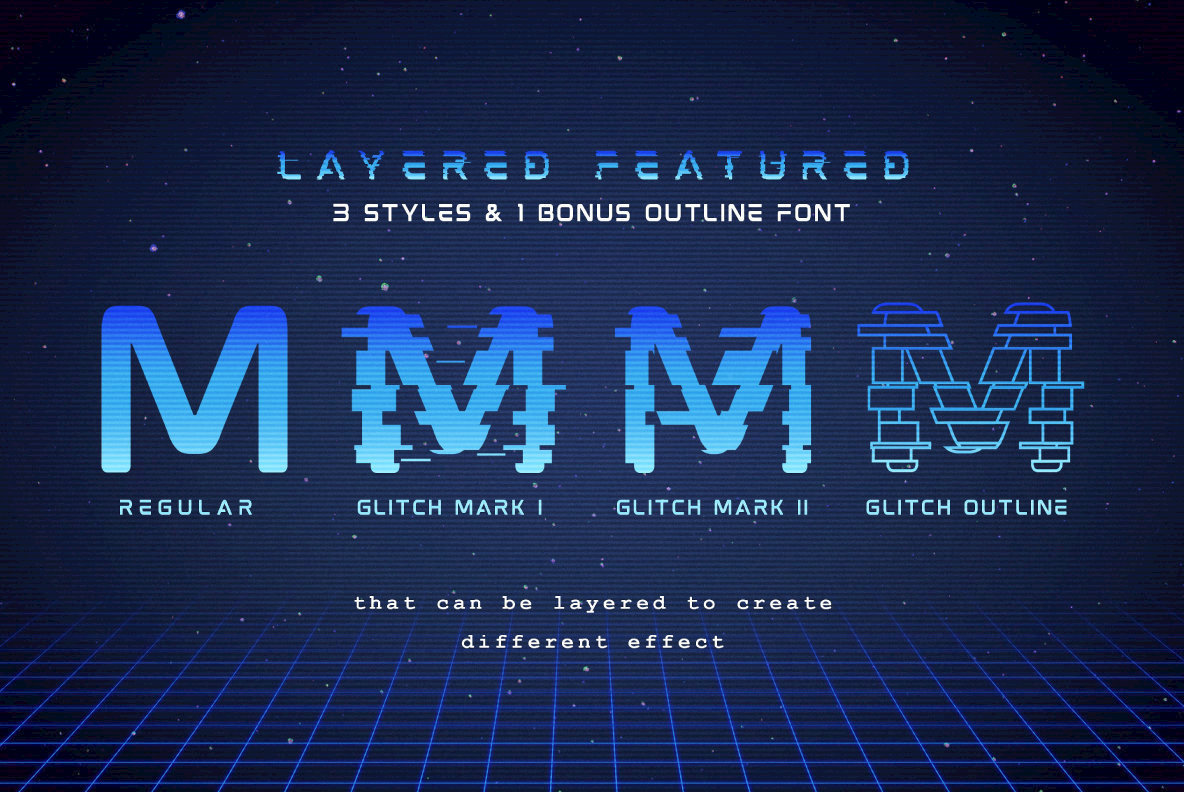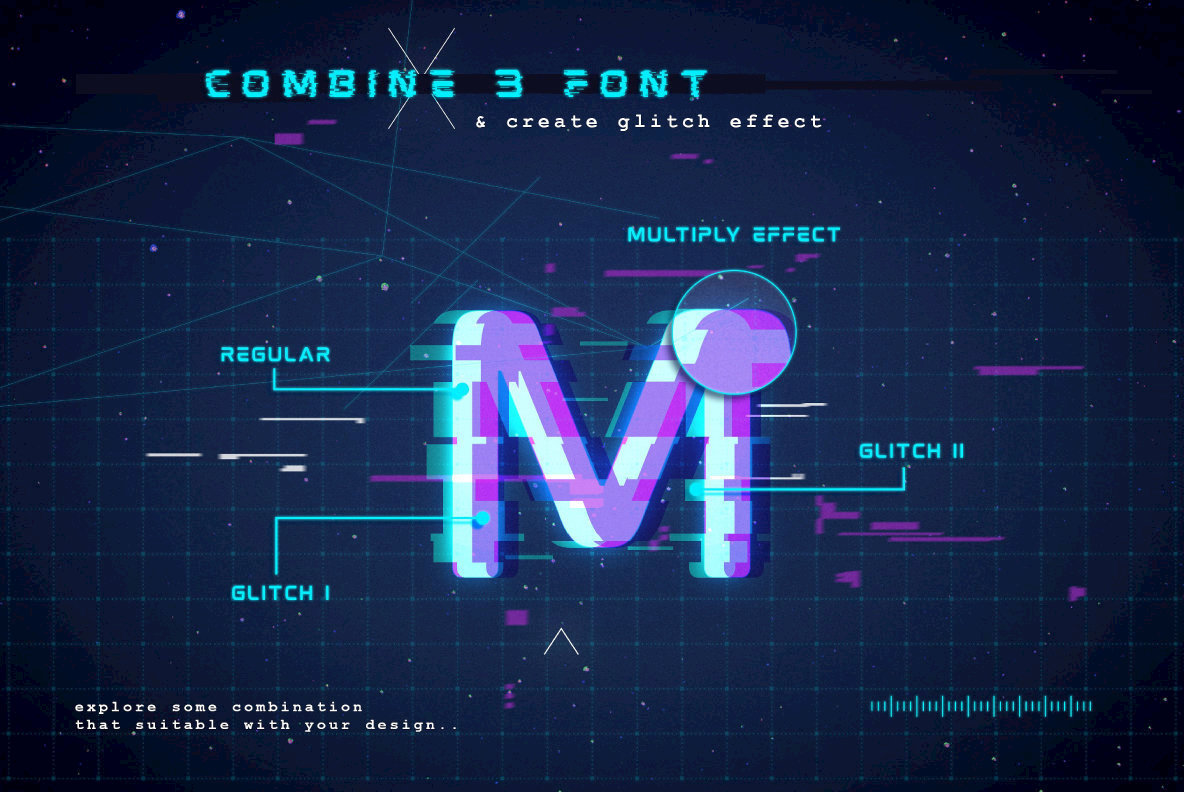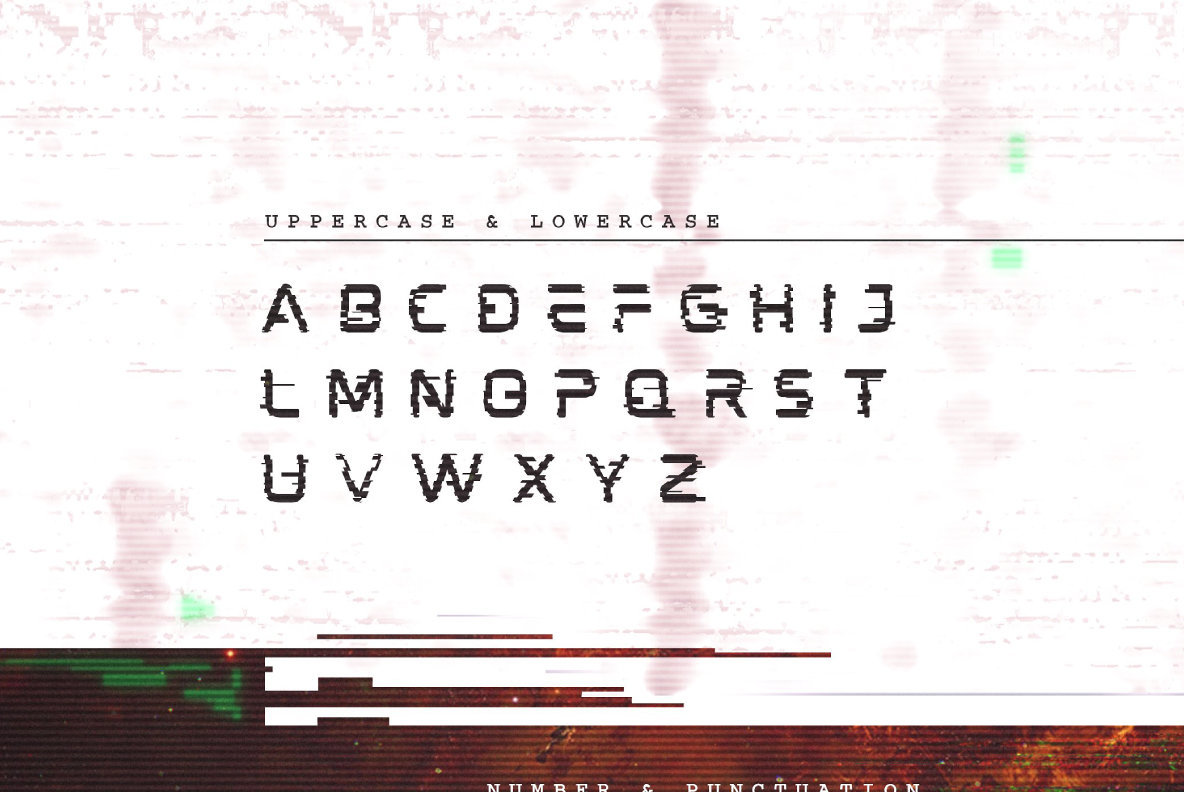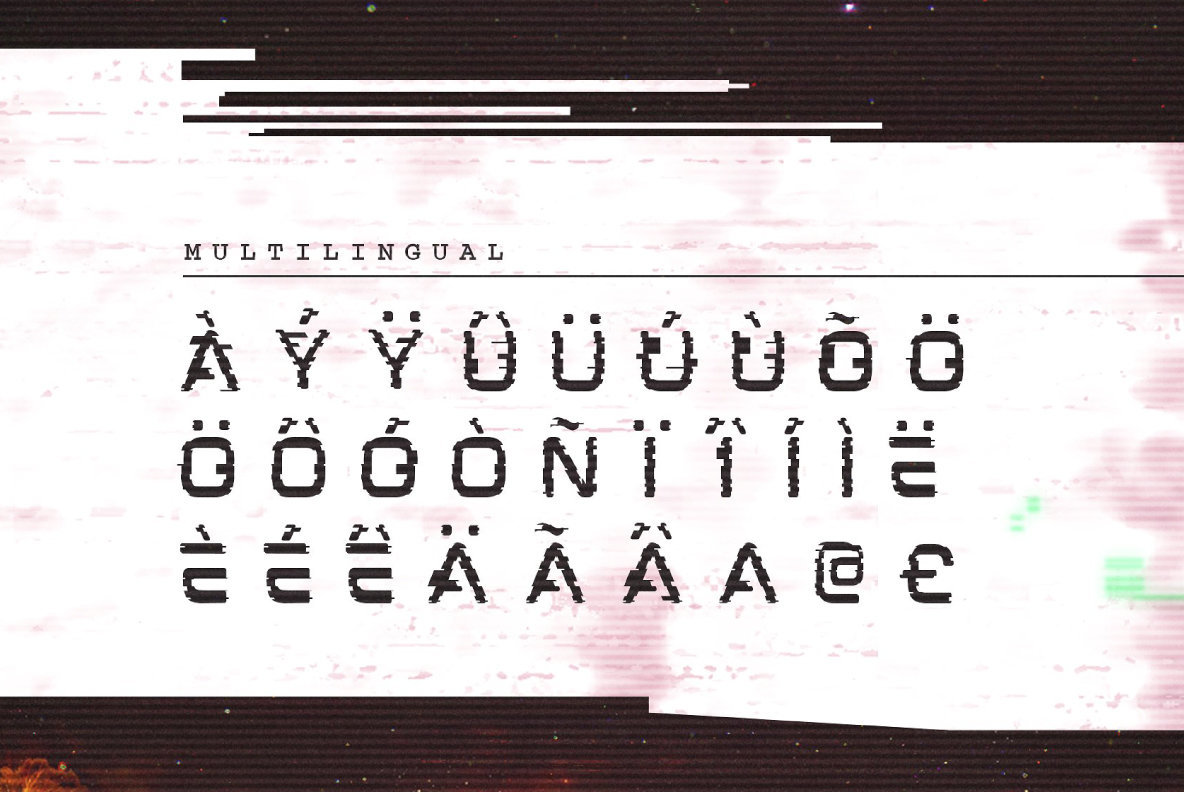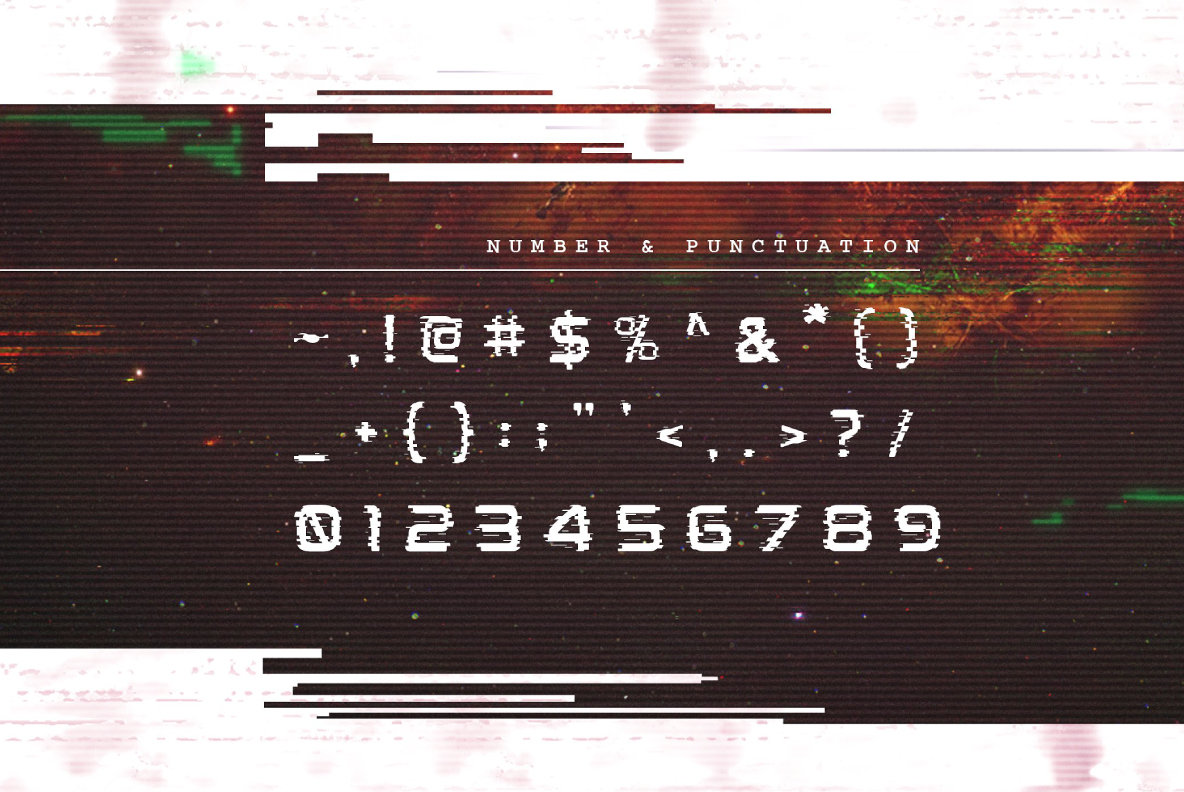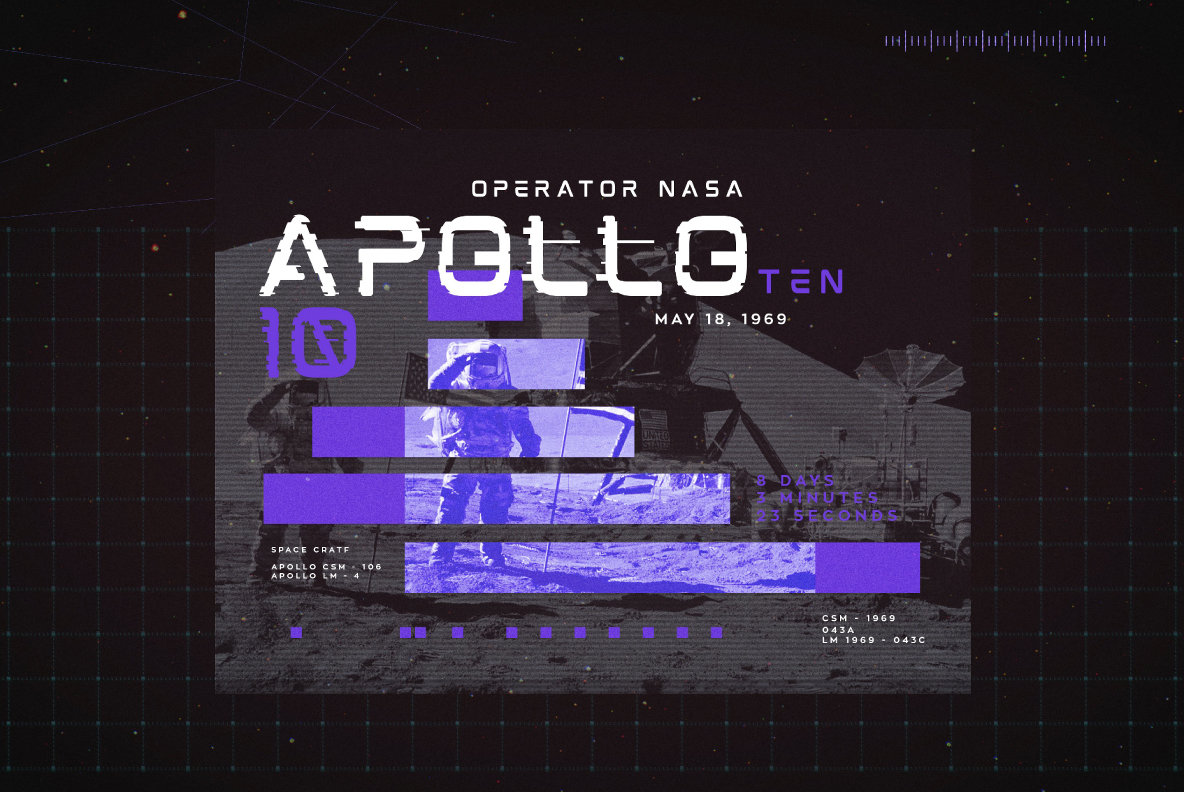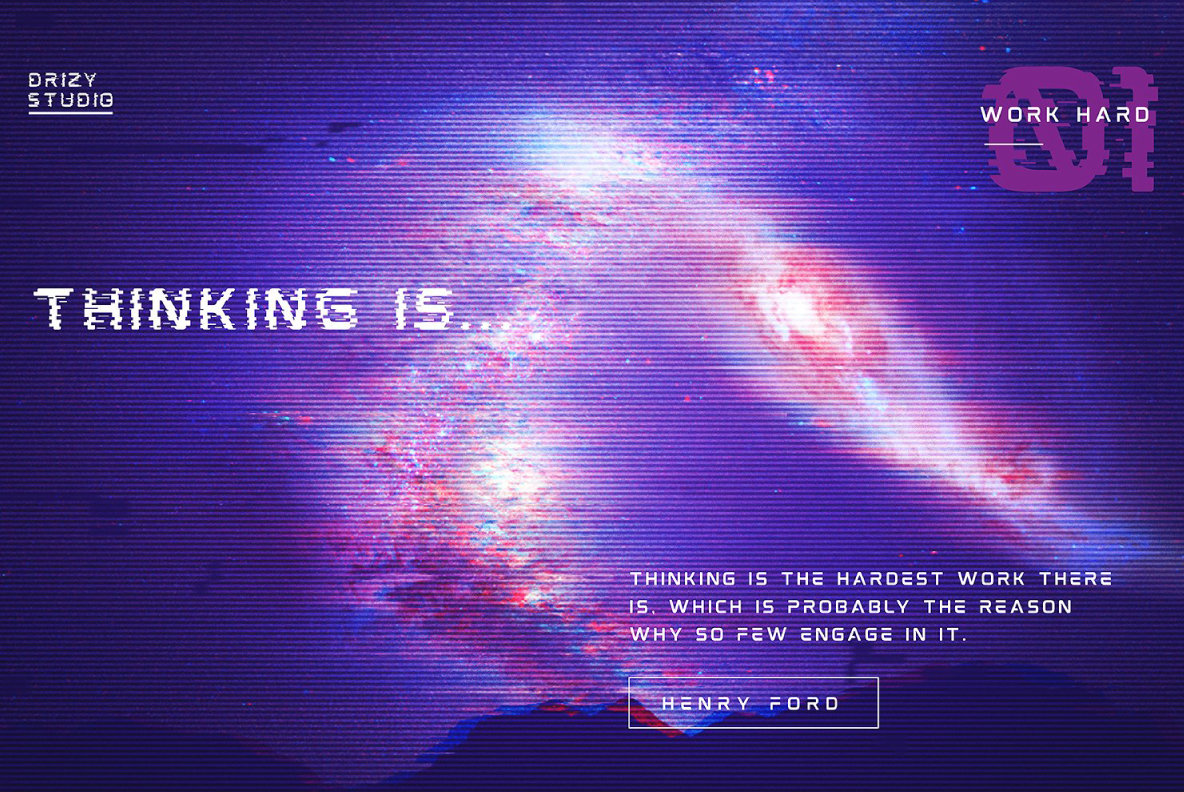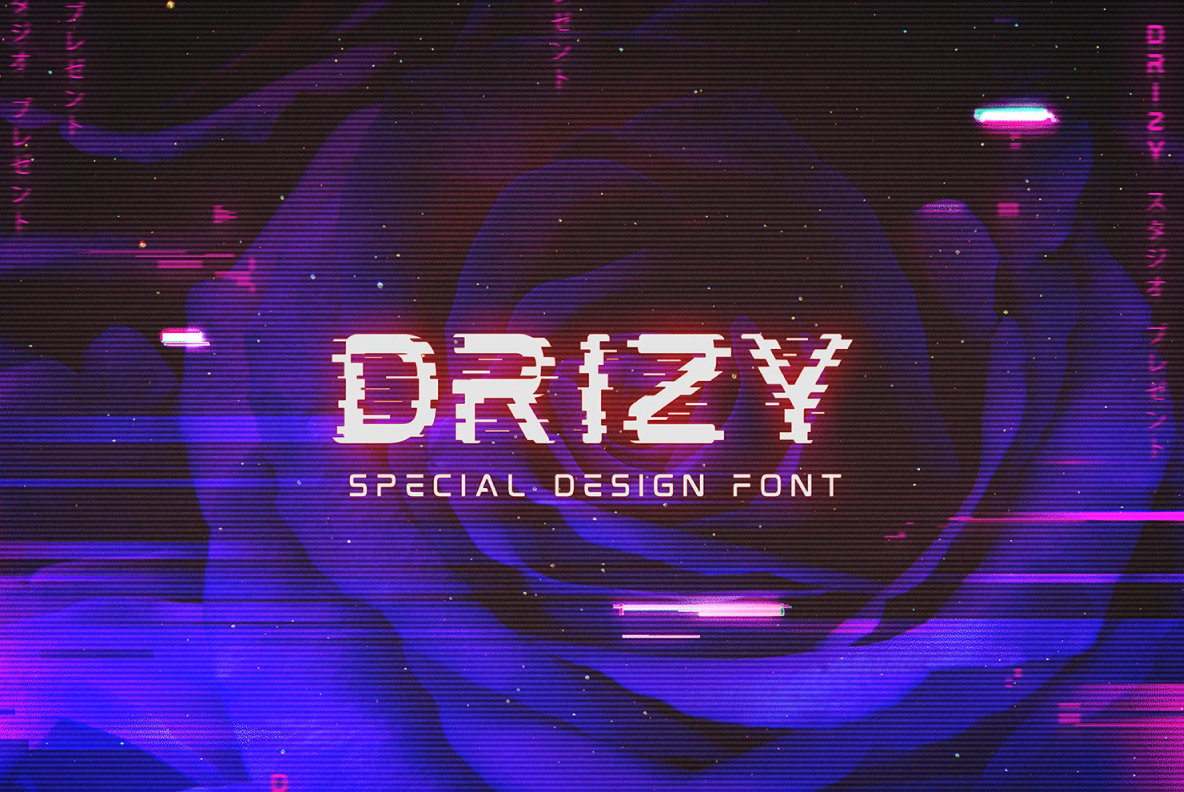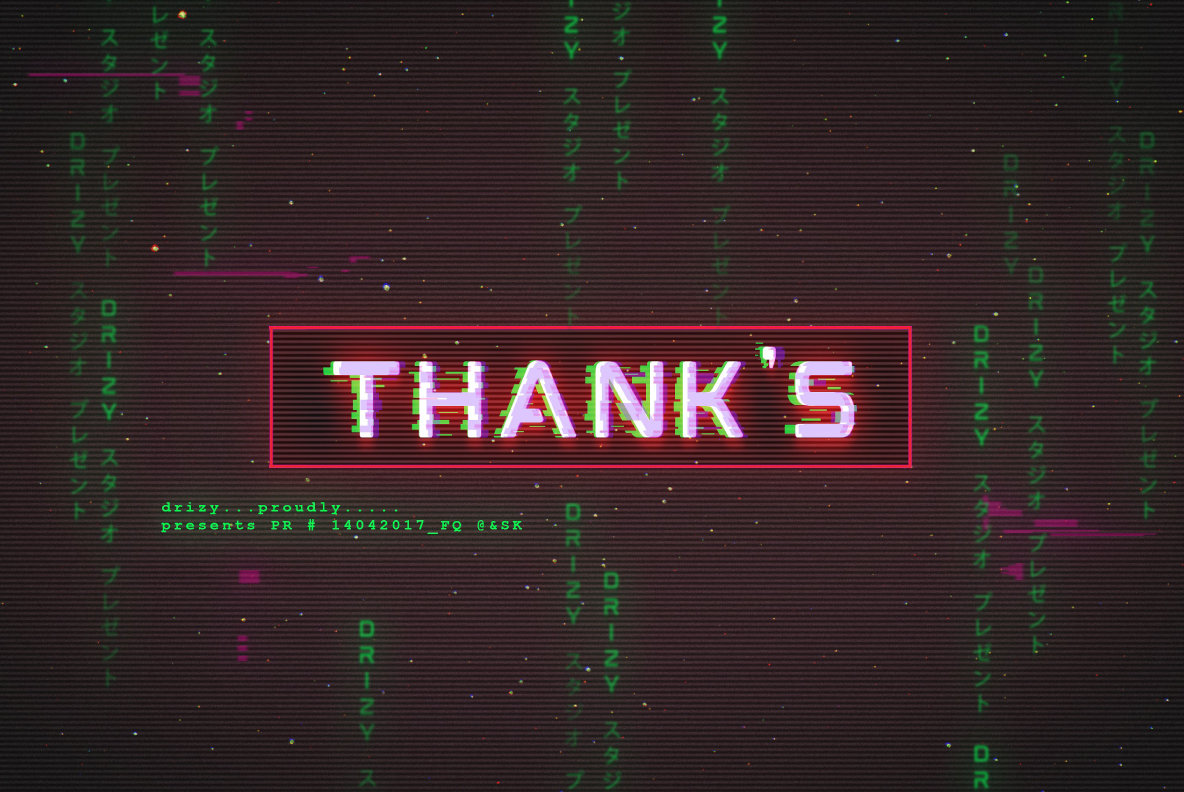
Mokoto Font
Mokoto Glitch Regular
Mokoto is an experimental font that gives the appearance of digital glitching effect. Inspired from modern fonts and slicing image in error system, to create something different and compelling.